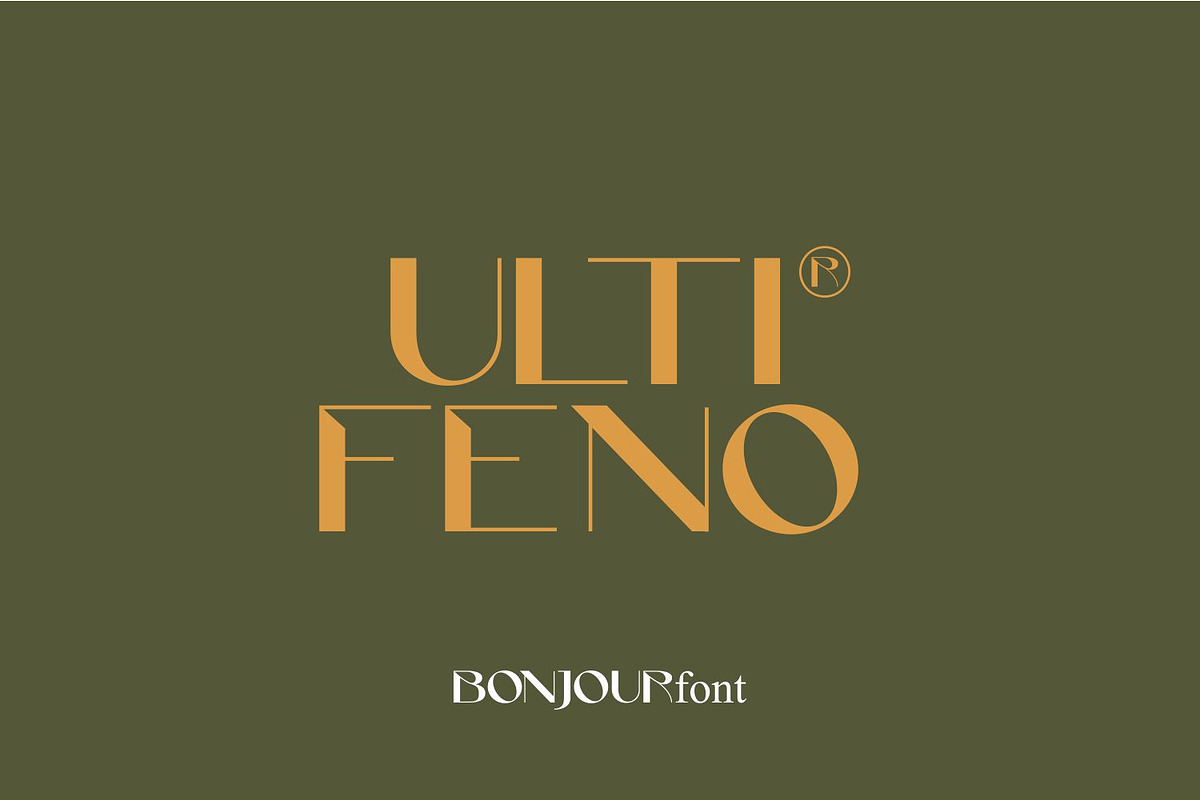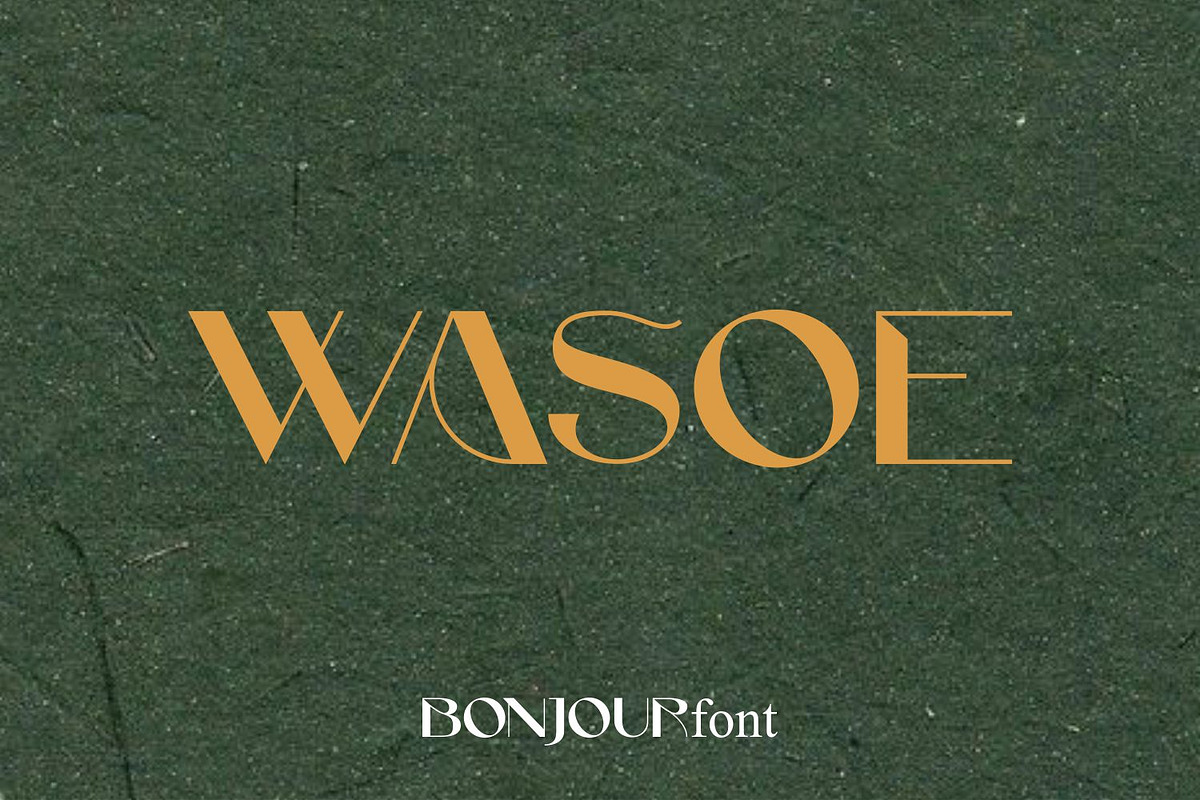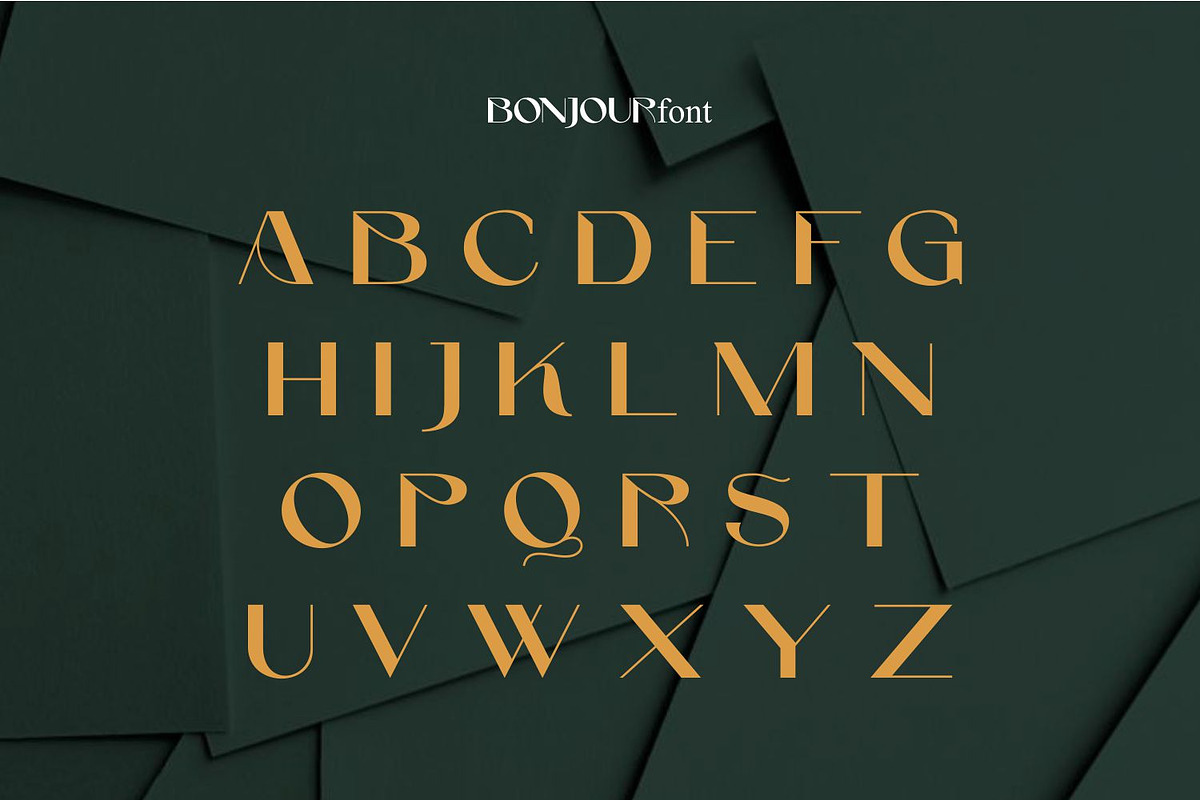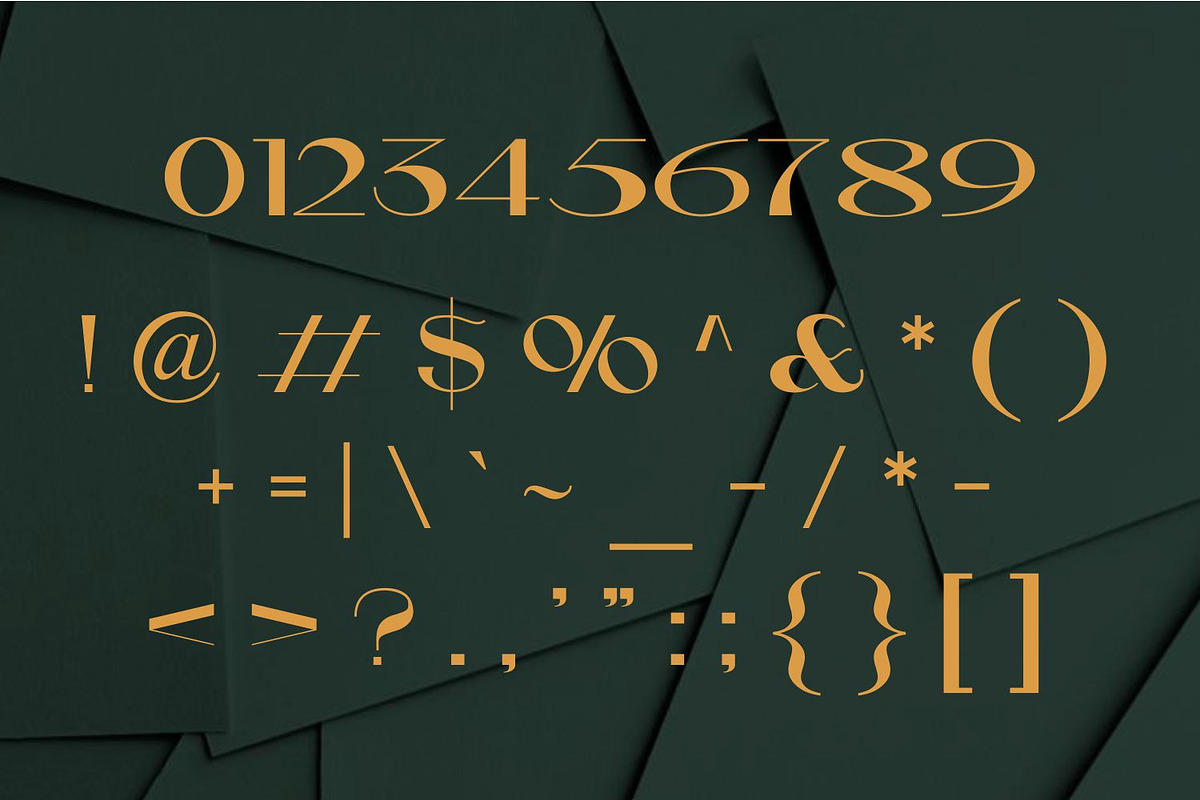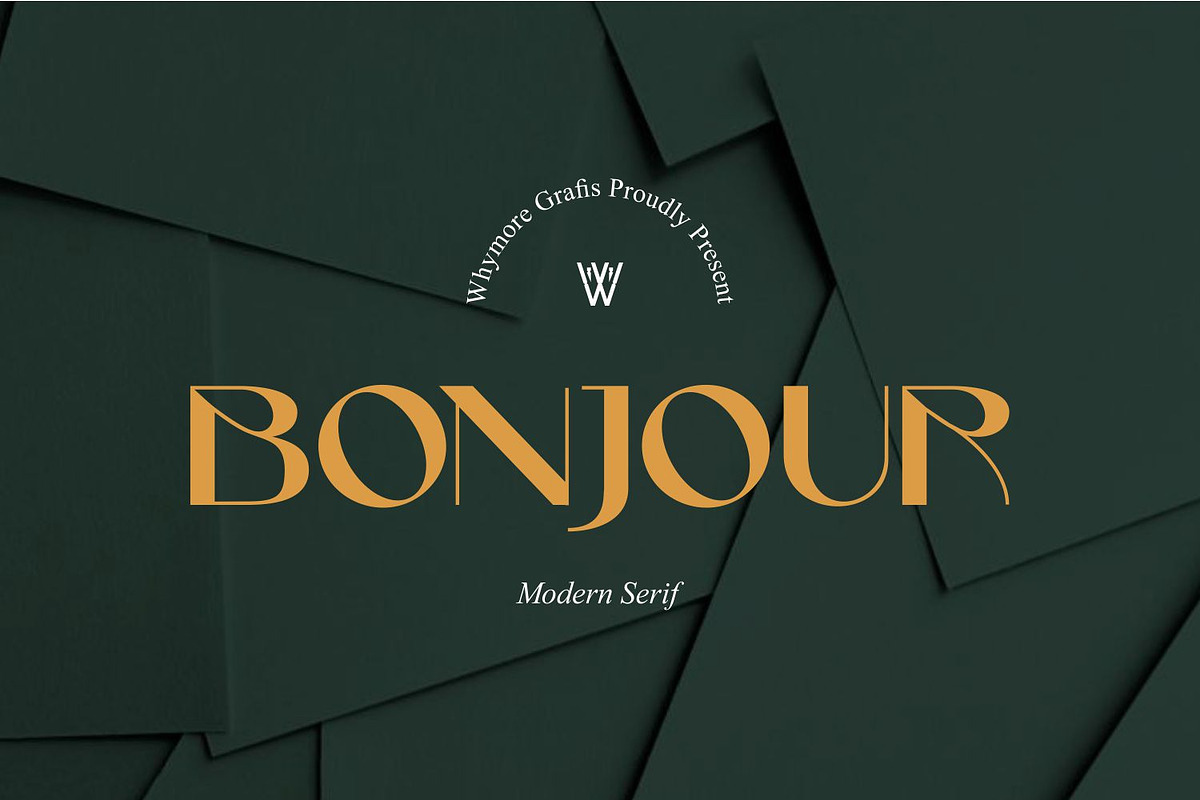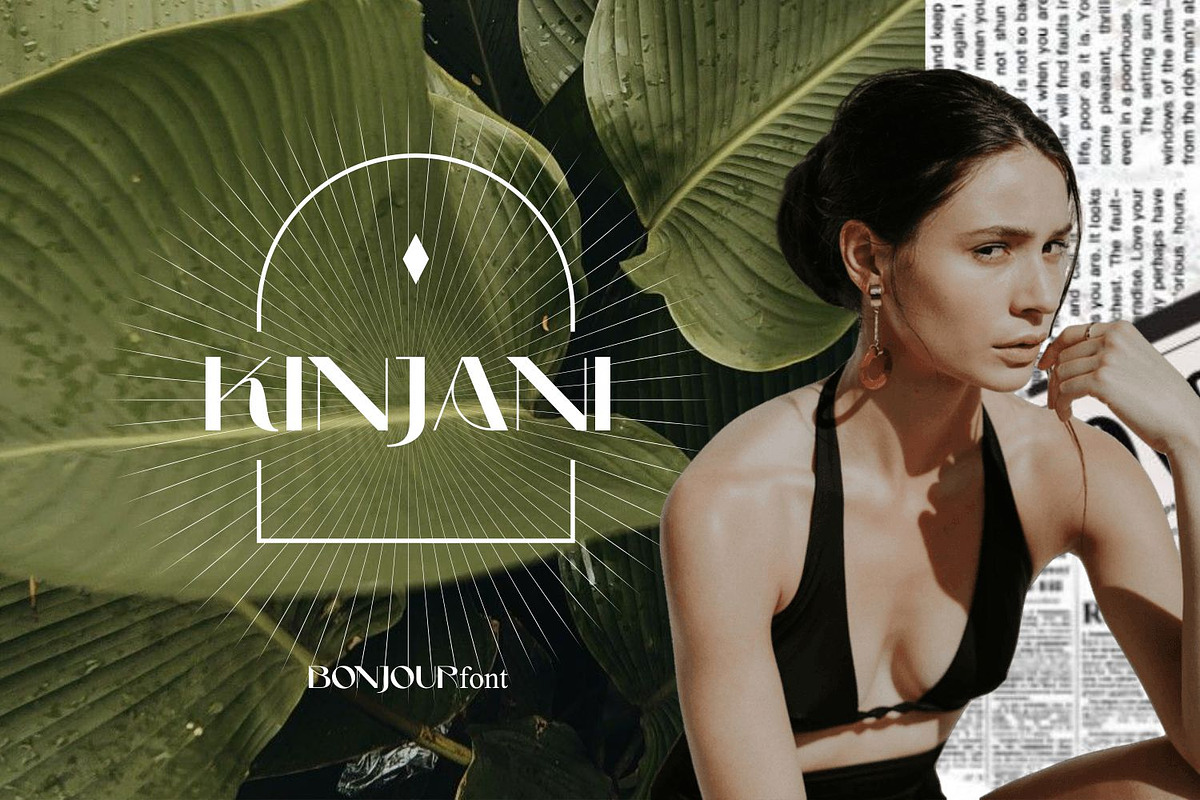
Bonjour Modern Bold Sans Serif
The Bonjour Font is a sleek and modern sans-serif typeface that embodies contemporary design and versatility. With its clean lines and balanced proportions, this font brings a sense of sophistication to any project.
Whether you’re creating branding materials for a tech startup, designing sleek interfaces, or crafting minimalist editorial layouts, the Bonjour Font adds a touch of modern elegance that captivates the viewer. Its minimalist design and versatile nature make it perfect for a wide range of digital and print applications. Say ‘hello’ to modern design with the Bonjour Font.